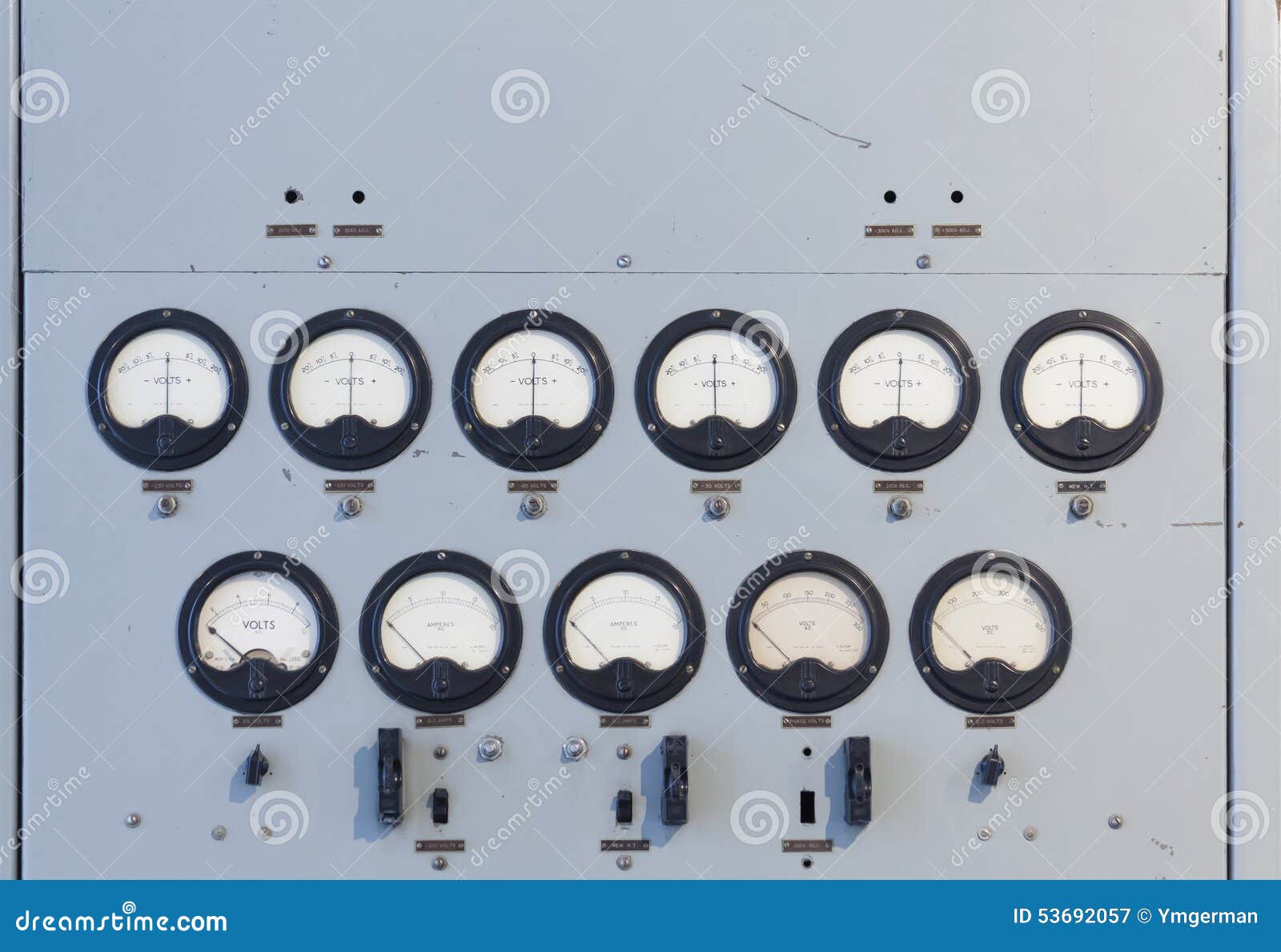
Instrument Panel Font . If you have adobe illustrator or something similar, you could use a common font (arial rounded, gill sans, futura are good ones. I'm putting together a mkii panel and am trying to. B612 is a font designed by airbus and intactile design to improve the legibility and comfort of reading on aircraft cockpit screens. I remember seeing some time ago, a thread in relation to the font size and style seen on spitfire instrument panels. Learn about different methods and options for labeling your instrument panel, from placards and overlays to decals and dry transfers. Instrument serif is a condensed display font designed for the instrument brand. I'm looking to print off my own panel backing sheets, but in order to do so i'd like to match the fonts with the original, and can't. It's said to be a military standard font, and it has a constant width throughout all strokes of the characters,. Find out how to customize, print and apply your own panel labels with tips and examples. Try a google search for ms 33558 truetype font. It is intended for use at large sizes and offers a.
I remember seeing some time ago, a thread in relation to the font size and style seen on spitfire instrument panels. I'm looking to print off my own panel backing sheets, but in order to do so i'd like to match the fonts with the original, and can't. Learn about different methods and options for labeling your instrument panel, from placards and overlays to decals and dry transfers. Instrument serif is a condensed display font designed for the instrument brand. I'm putting together a mkii panel and am trying to. It is intended for use at large sizes and offers a. Find out how to customize, print and apply your own panel labels with tips and examples. It's said to be a military standard font, and it has a constant width throughout all strokes of the characters,. If you have adobe illustrator or something similar, you could use a common font (arial rounded, gill sans, futura are good ones. Try a google search for ms 33558 truetype font.
Instrument Panel Font Learn about different methods and options for labeling your instrument panel, from placards and overlays to decals and dry transfers. Find out how to customize, print and apply your own panel labels with tips and examples. I'm putting together a mkii panel and am trying to. Try a google search for ms 33558 truetype font. Learn about different methods and options for labeling your instrument panel, from placards and overlays to decals and dry transfers. Instrument serif is a condensed display font designed for the instrument brand. It is intended for use at large sizes and offers a. It's said to be a military standard font, and it has a constant width throughout all strokes of the characters,. If you have adobe illustrator or something similar, you could use a common font (arial rounded, gill sans, futura are good ones. B612 is a font designed by airbus and intactile design to improve the legibility and comfort of reading on aircraft cockpit screens. I'm looking to print off my own panel backing sheets, but in order to do so i'd like to match the fonts with the original, and can't. I remember seeing some time ago, a thread in relation to the font size and style seen on spitfire instrument panels.
(F140B) MOTOR GRADER NEW CAB (BRAZIL) (9/10) (0427[01 Instrument Panel Font I'm looking to print off my own panel backing sheets, but in order to do so i'd like to match the fonts with the original, and can't. Learn about different methods and options for labeling your instrument panel, from placards and overlays to decals and dry transfers. Find out how to customize, print and apply your own panel labels with. Instrument Panel Font.
Old instrument panel stock image. Image of measurement 53692057 Instrument Panel Font Find out how to customize, print and apply your own panel labels with tips and examples. Try a google search for ms 33558 truetype font. Instrument serif is a condensed display font designed for the instrument brand. B612 is a font designed by airbus and intactile design to improve the legibility and comfort of reading on aircraft cockpit screens. Learn. Instrument Panel Font.
Instrument panel ScaleAvionics Instrument Panel Font Instrument serif is a condensed display font designed for the instrument brand. I'm putting together a mkii panel and am trying to. I'm looking to print off my own panel backing sheets, but in order to do so i'd like to match the fonts with the original, and can't. It is intended for use at large sizes and offers a.. Instrument Panel Font.
Precision Instrument Panel Lettering Dry Transfer Letters Instrument Panel Font I'm looking to print off my own panel backing sheets, but in order to do so i'd like to match the fonts with the original, and can't. Instrument serif is a condensed display font designed for the instrument brand. It is intended for use at large sizes and offers a. B612 is a font designed by airbus and intactile design. Instrument Panel Font.
Lockheed T33 USAF "Shooting Star" trainer aircraft front and rear Instrument Panel Font It's said to be a military standard font, and it has a constant width throughout all strokes of the characters,. Find out how to customize, print and apply your own panel labels with tips and examples. I remember seeing some time ago, a thread in relation to the font size and style seen on spitfire instrument panels. Learn about different. Instrument Panel Font.
Peugeot 2008 2013 Instrument Panel Front Seat Driver Instrument Panel Font I'm looking to print off my own panel backing sheets, but in order to do so i'd like to match the fonts with the original, and can't. B612 is a font designed by airbus and intactile design to improve the legibility and comfort of reading on aircraft cockpit screens. I remember seeing some time ago, a thread in relation to. Instrument Panel Font.
Design and Manufacturing of an Instrument Panel Overlay for an Airbus Instrument Panel Font Learn about different methods and options for labeling your instrument panel, from placards and overlays to decals and dry transfers. Instrument serif is a condensed display font designed for the instrument brand. I remember seeing some time ago, a thread in relation to the font size and style seen on spitfire instrument panels. Try a google search for ms 33558. Instrument Panel Font.
Cadillac XT6 Instrument Panel Air Duct. FRONT 23378134 Wholesale Instrument Panel Font B612 is a font designed by airbus and intactile design to improve the legibility and comfort of reading on aircraft cockpit screens. Instrument serif is a condensed display font designed for the instrument brand. Try a google search for ms 33558 truetype font. I'm putting together a mkii panel and am trying to. It is intended for use at large. Instrument Panel Font.
CNC Engraved Instrument Panels Ace Makerspace Instrument Panel Font It is intended for use at large sizes and offers a. B612 is a font designed by airbus and intactile design to improve the legibility and comfort of reading on aircraft cockpit screens. Learn about different methods and options for labeling your instrument panel, from placards and overlays to decals and dry transfers. I remember seeing some time ago, a. Instrument Panel Font.